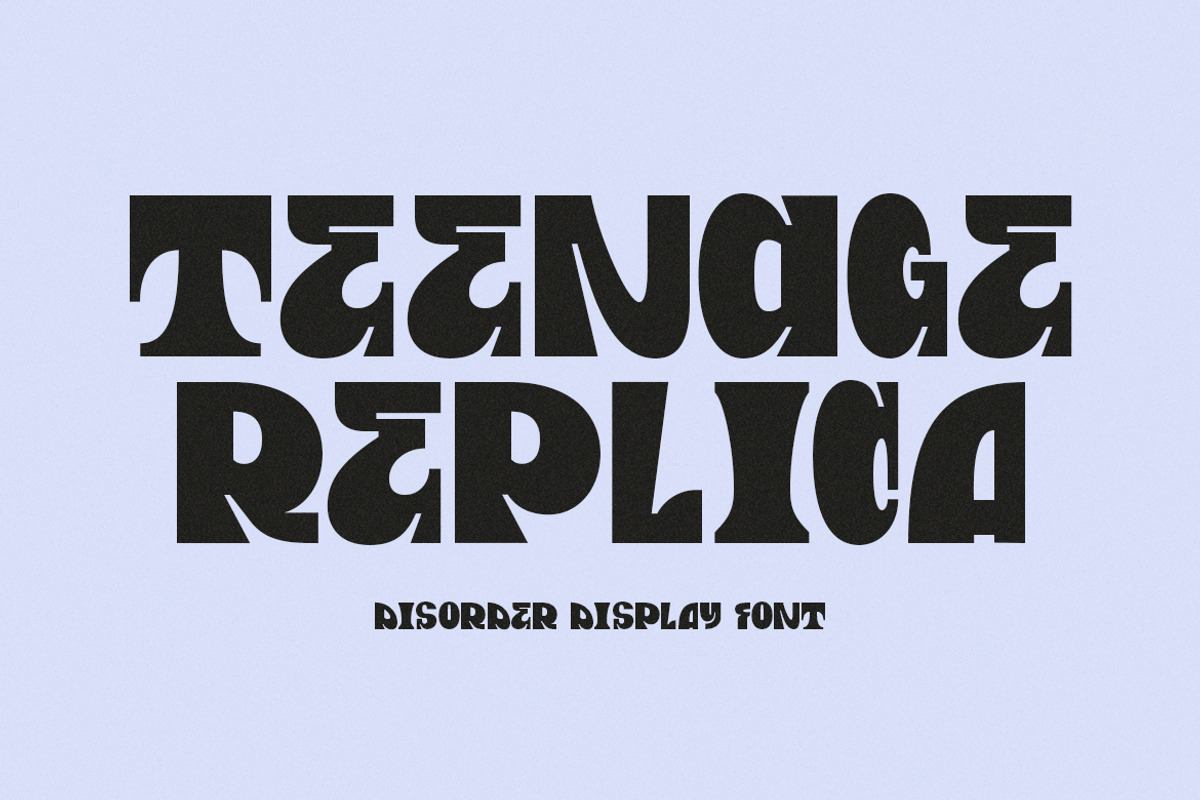
Teenage Replica Font Free Download is a bold and energetic typeface inspired by punk zines, retro pop culture, and youthful rebellion. With its raw, distorted letterforms and hand-crafted vibe, this font is perfect for band posters, edgy branding, streetwear labels, album covers, and designs that demand attitude and authenticity.
Designed to break the rules, Teenage Replica Font Free Download brings a loud, chaotic charm that’s ideal for creatives looking to make a statement. Its imperfect, high-impact style adds an underground feel to any visual, making it a go-to for projects that thrive on individuality and expression.